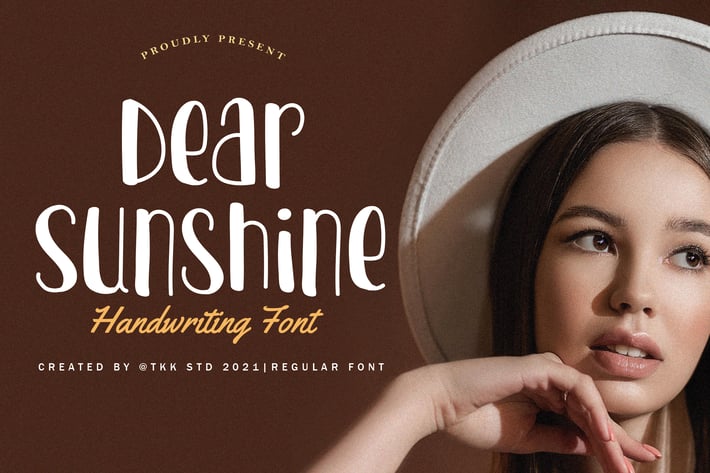
Dear Sunshine - Girly Font
Dear Sunshine- Cute Girly Font
Dear Sunshine is a romantic handwriting script font designed for emotional storytelling and elevated branding. With graceful strokes, elegant curves, and soft terminals, it conveys both warmth and confidence. This expressive script blends a natural hand-drawn aesthetic with a fashion-forward tone—ideal for beauty brands, editorial spreads, wedding invitations, or social media posts seeking sophistication and emotional depth.
Its character set maintains a fluid letterform structure—lightweight, legible, and artistic—while preserving a delicate yet confident flow. It’s chic, classy, and versatile, tailored to make words feel personal yet polished.
Whether you're crafting a fashion week promo, a coffee shop identity, or a love story book cover, Dear Sunshine delivers the visual poetry your project deserves. It connects directly with audiences through handwritten authenticity, while maintaining professional design quality for luxury packaging, boutique branding, or lifestyle influencer content. Give your words personality—graceful, gentle, and instantly relatable.
Key Features :
Romantic, feminine, and perfectly imperfect
- Elegant strokes with natural curves and smooth transitions
- Ideal for fashion, beauty, food, and wedding design
- Works beautifully in logos, Instagram content, and product packaging
- Organic feel with designer polish